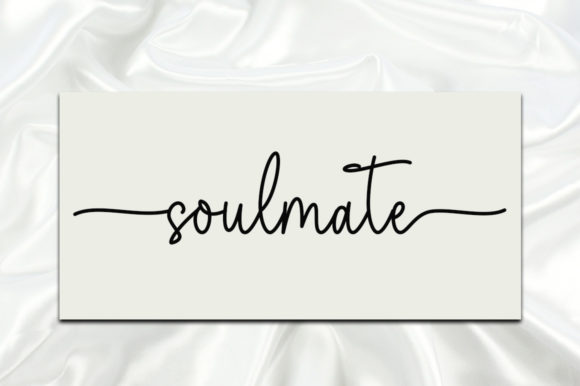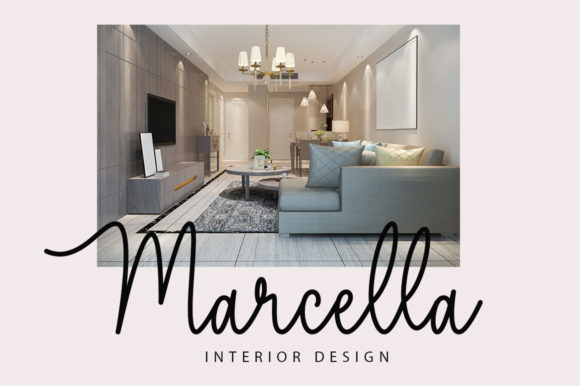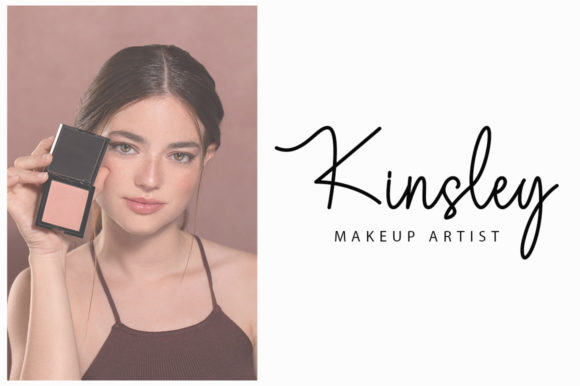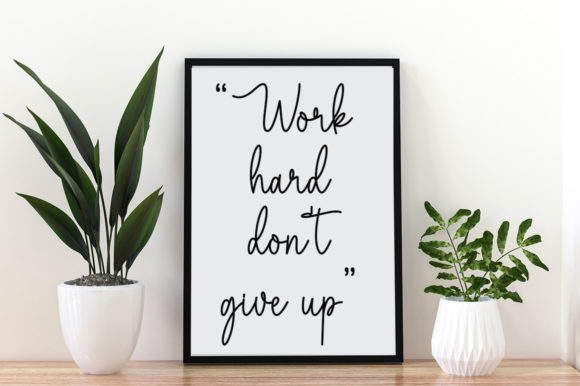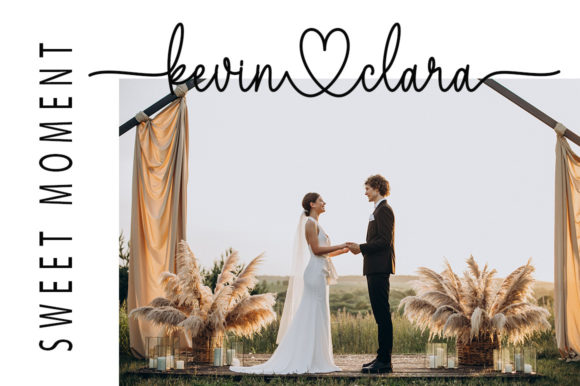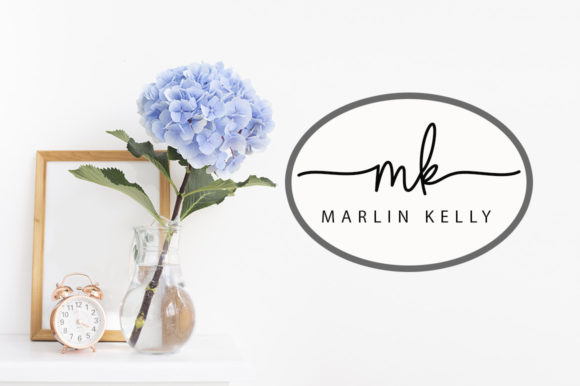
The Breakfast Font: A Delicious Addition to Your Design Projects
I’ll never forget the struggle I faced while working on a branding project for a trendy new café. My client wanted a font that was elegant, yet approachable; something that would make their menu look high-end without being too fancy. After hours of searching through font libraries, I stumbled upon the Breakfast font. It was love at first sight! 💕
The Breakfast font is an elegant script font that has been gaining popularity among designers, crafters, and creative hobbyists. Its balanced and varied strokes make it perfect for adding a touch of sophistication to any project. In this article, we’ll dive into the world of Breakfast font, exploring its features, how to use it, and what makes it so special.
An Honest Review of Breakfast Font
What I Love About Breakfast Font ✨
• 💫 Elegant and sophisticated: The Breakfast font has a unique charm that adds a touch of luxury to any project.
• ✅ Balanced and varied: The font’s strokes are not too thin or too thick, making it easy to read and visually appealing.
• 🤩 Highly versatile: The Breakfast font can be used for a wide range of projects, from branding and advertising to crafting and DIY projects.
While the Breakfast font is an excellent choice for many projects, there are a few things to keep in mind:
• 🤔 Limited use for body text: Due to its script nature, the Breakfast font may not be the best choice for large blocks of body text.
The Story Behind Breakfast Font
The Breakfast font was designed with the intention of creating a beautiful, elegant script font that would add a touch of sophistication to any project. The designer aimed to create a font that was not too thin or too thick, but rather balanced and varied, making it perfect for a wide range of applications. While the exact story behind the font’s creation may be unknown, its unique charm and versatility have made it a favorite among designers and crafters alike.
Q: Is the Breakfast font suitable for body text?
A: While the Breakfast font is beautiful, it may not be the best choice for large blocks of body text. Its script nature can make it challenging to read in long paragraphs.
Q: Can I use the Breakfast font for my crafting project?
A: Yes! The Breakfast font is perfect for crafting projects, such as making cards, scrapbooking, or creating DIY projects. Its elegant and sophisticated feel adds a touch of luxury to any craft.